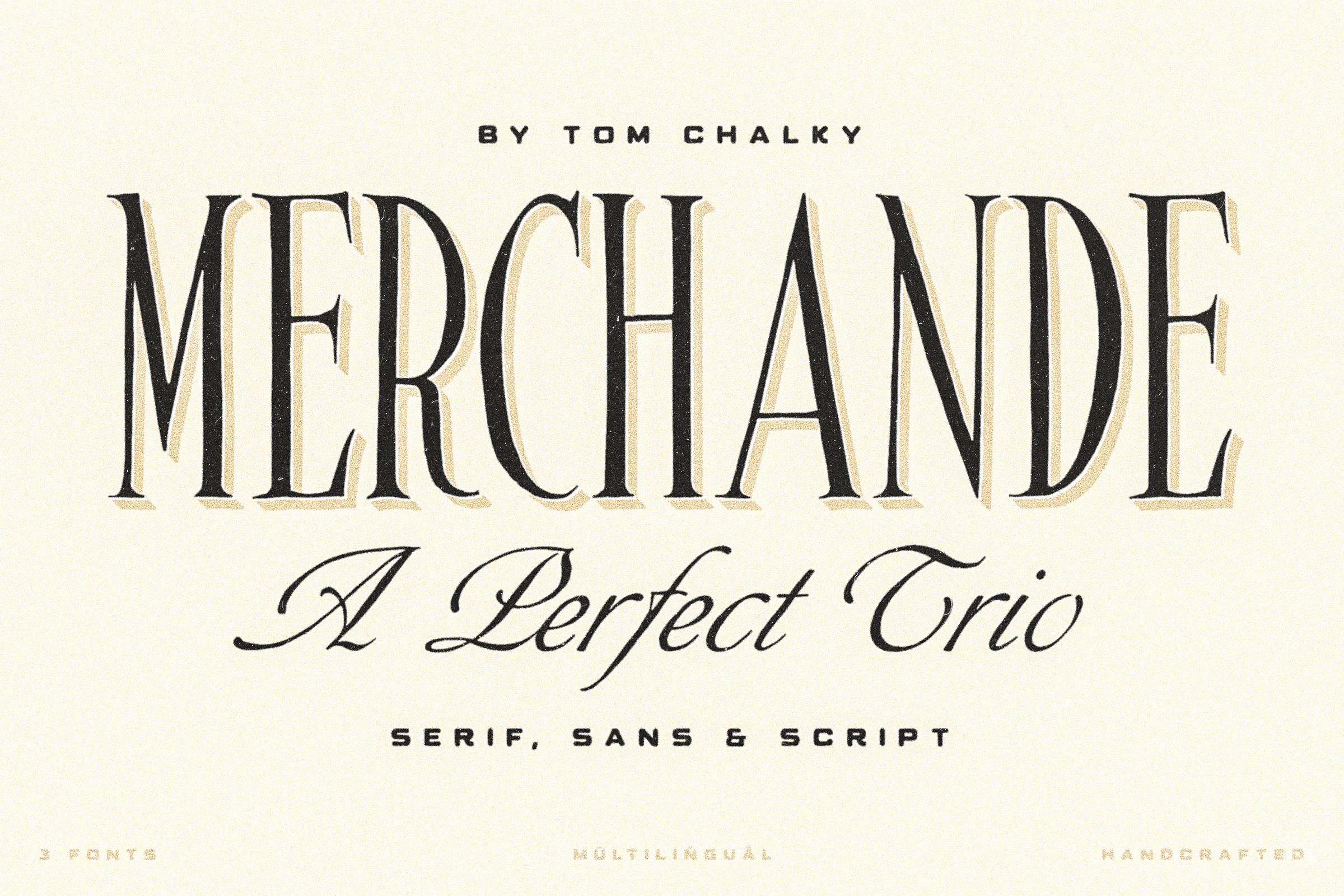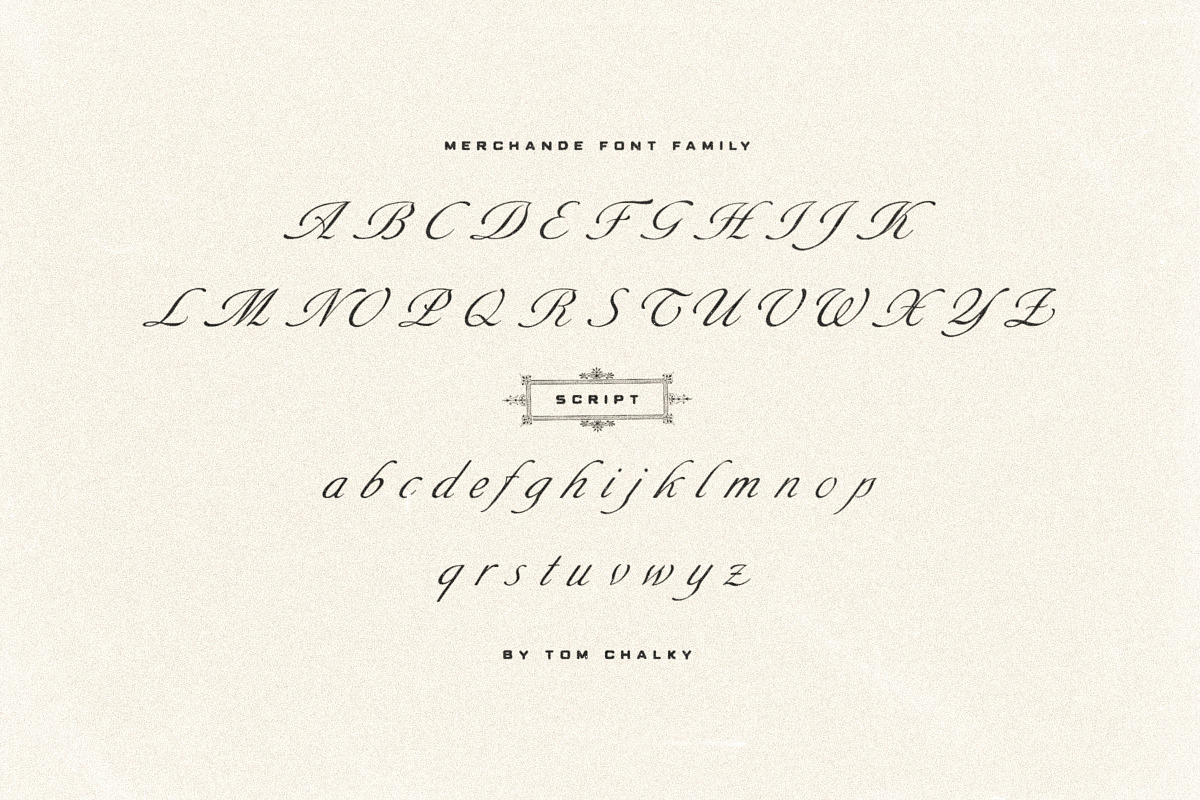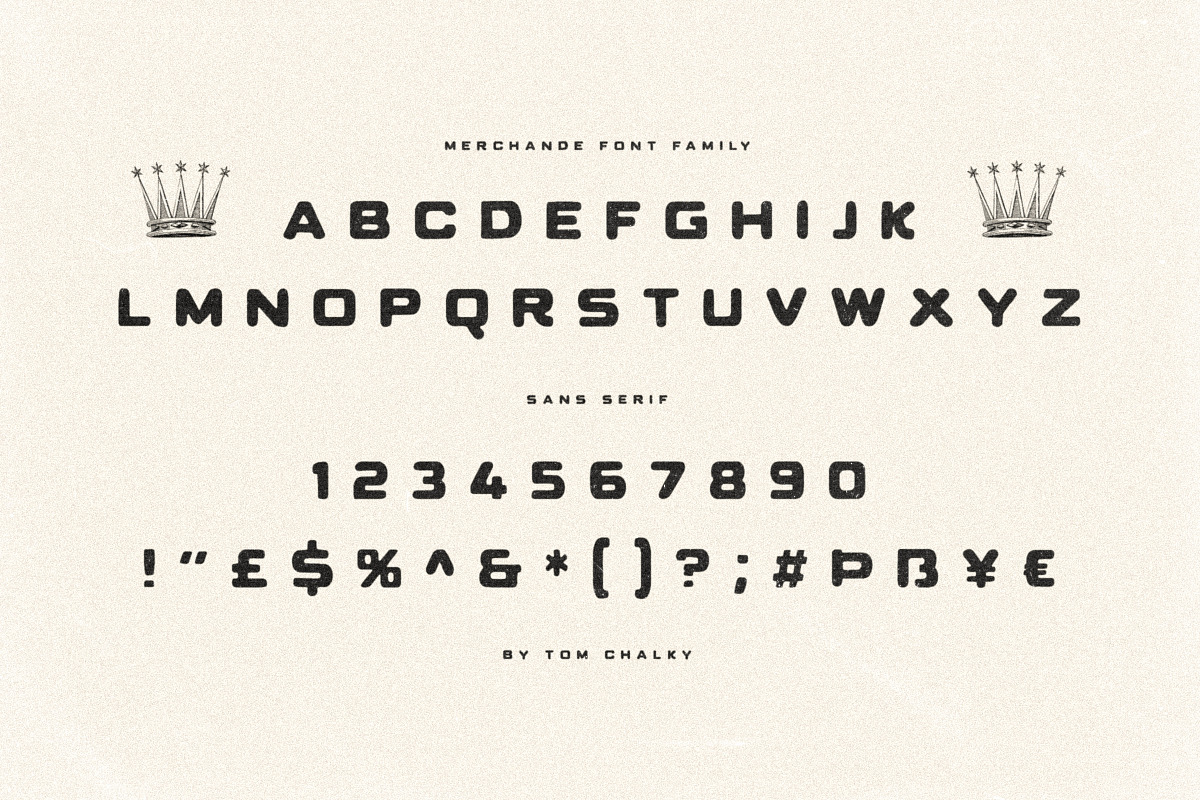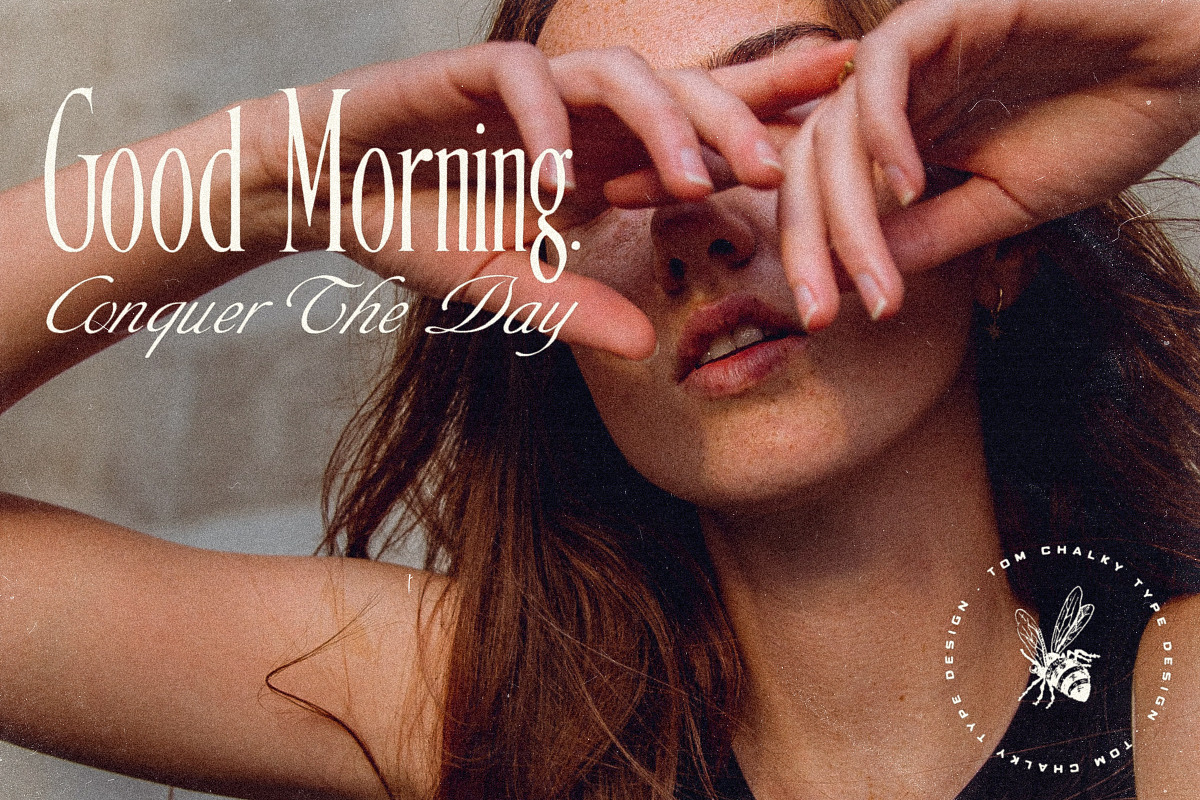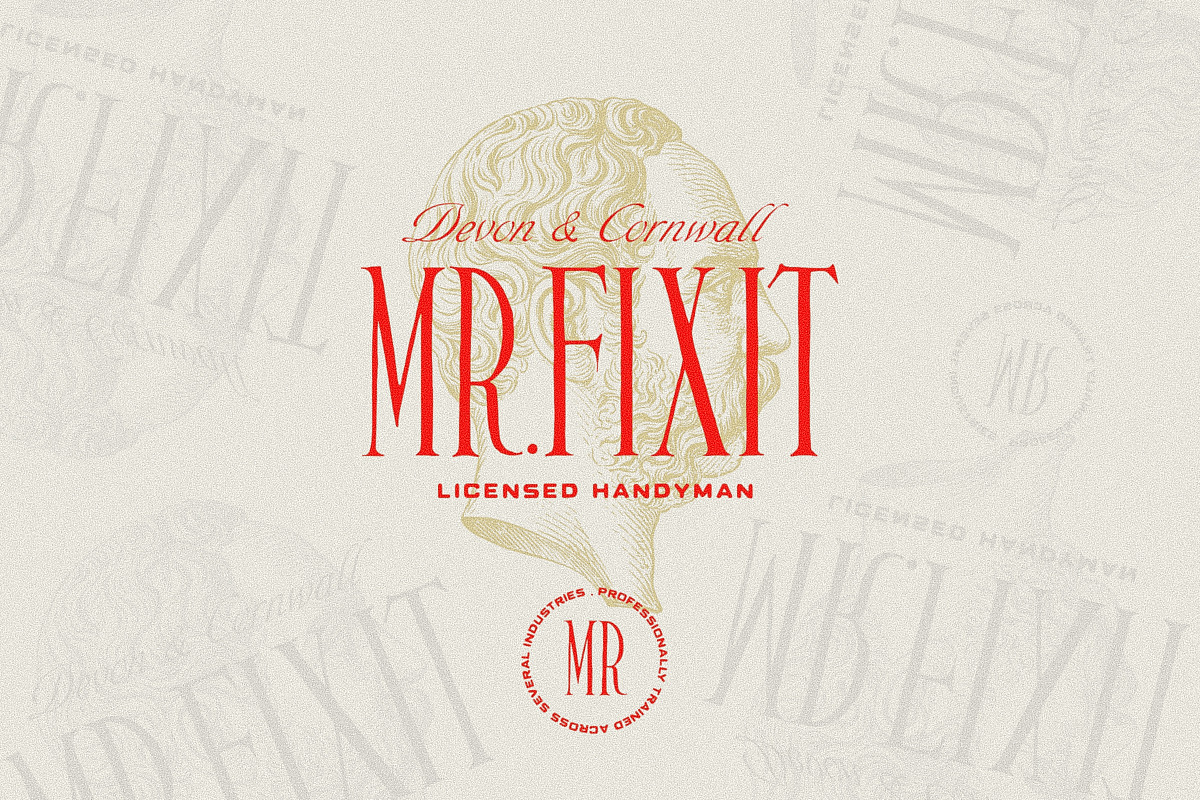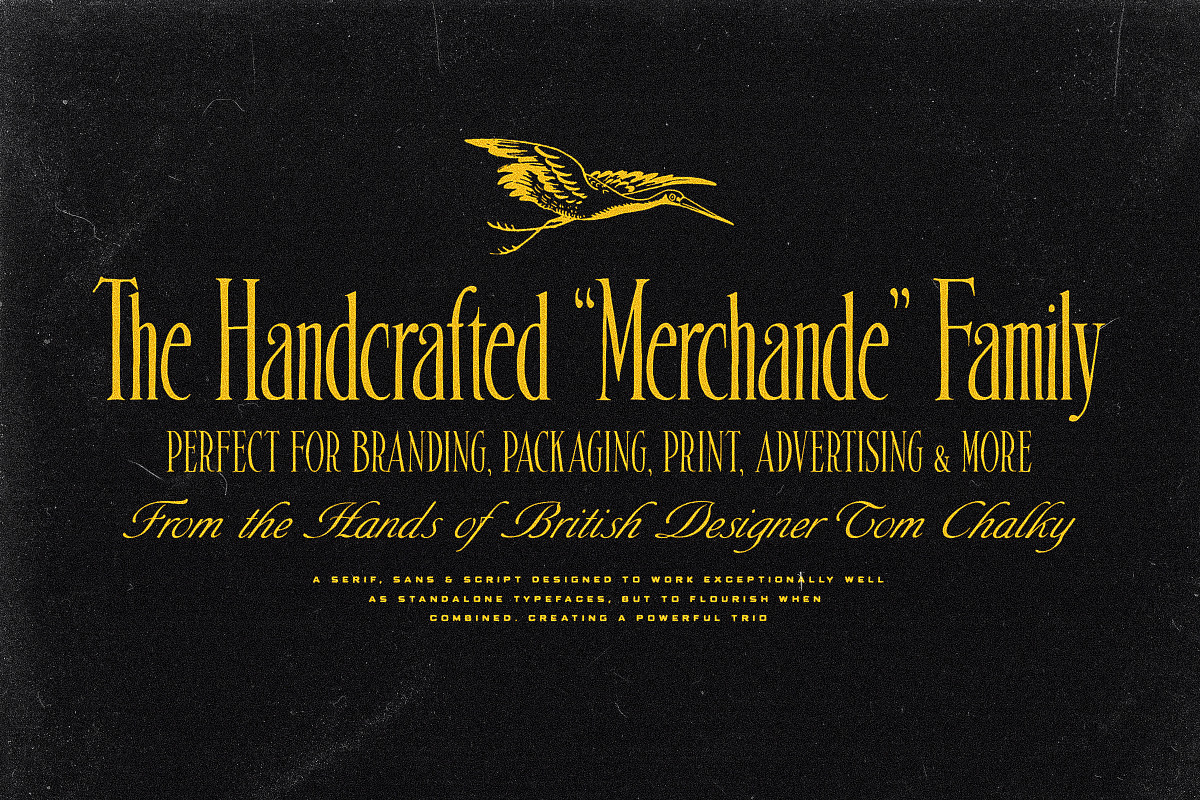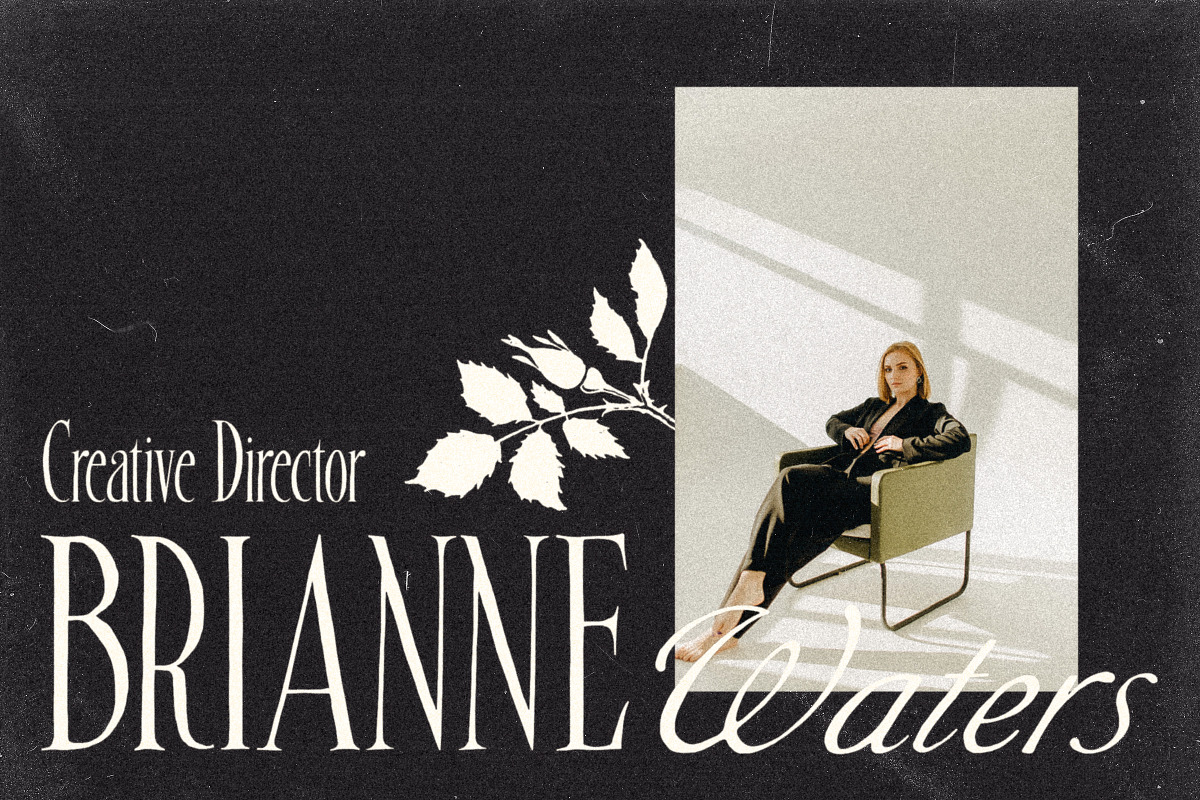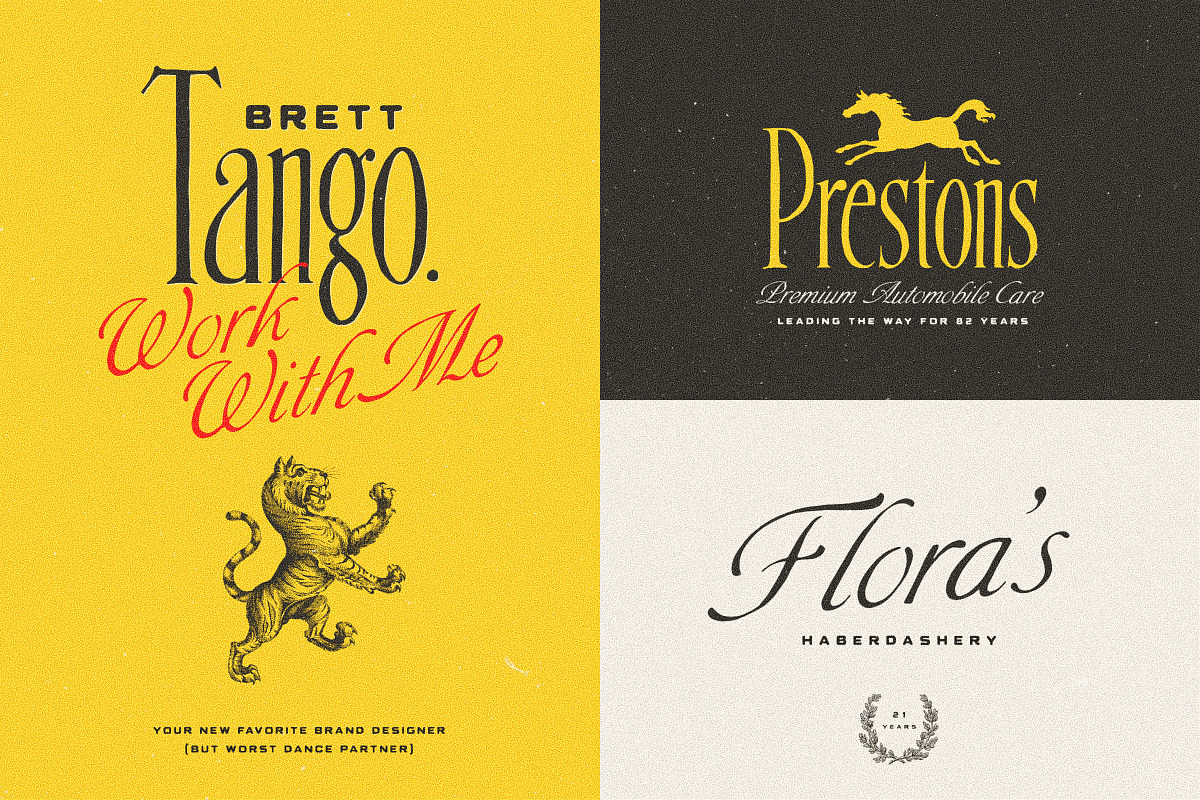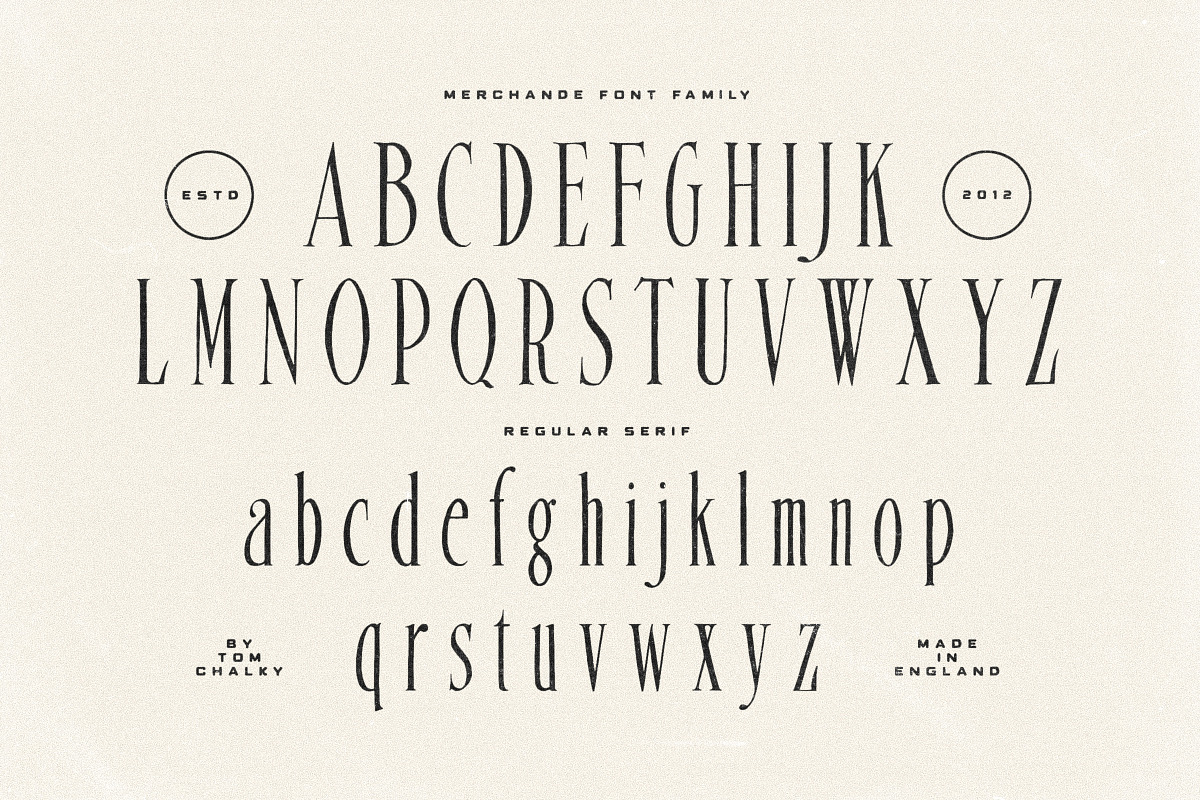
Merchande - Vintage Font Trio
Introducing the 'Merchande' Font Trio
Inspired by a variety of midcentury typefaces, the Merchande trio was designed to add pizzazz to your branding, packaging, advertising, and print projects.
- The serif is fantastic for headlines, logos, and anything that needs to grab attention. Its tall, condensed, and confident appearance is a great head-turner, made even better when combined with the two below.
- The script is perfect when a premium touch is needed for your work. Its use immediately adds a charming, personal quality. The best part, it's wonderfully legible in any size.
- While the sans works fantastic as a large display font, it truly shines when used for its intended purpose. Small text. Evidence of this is scattered throughout the presentation images. Tip: Increase the space between the letters (tracking), it looks awesome.